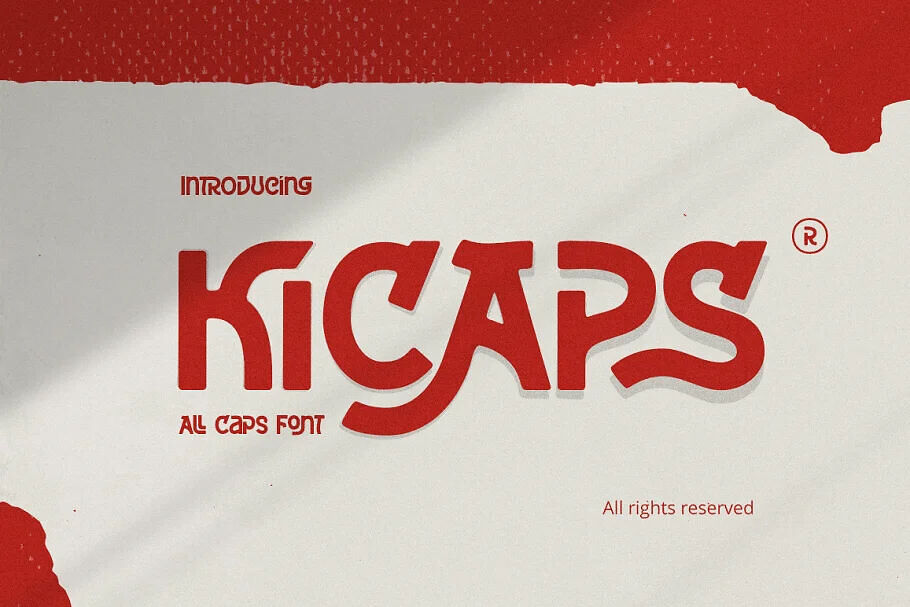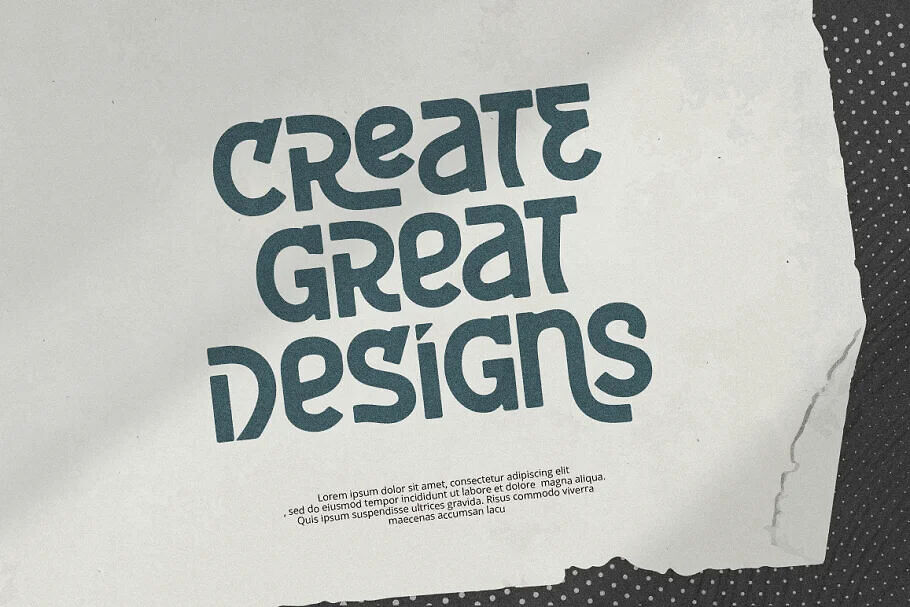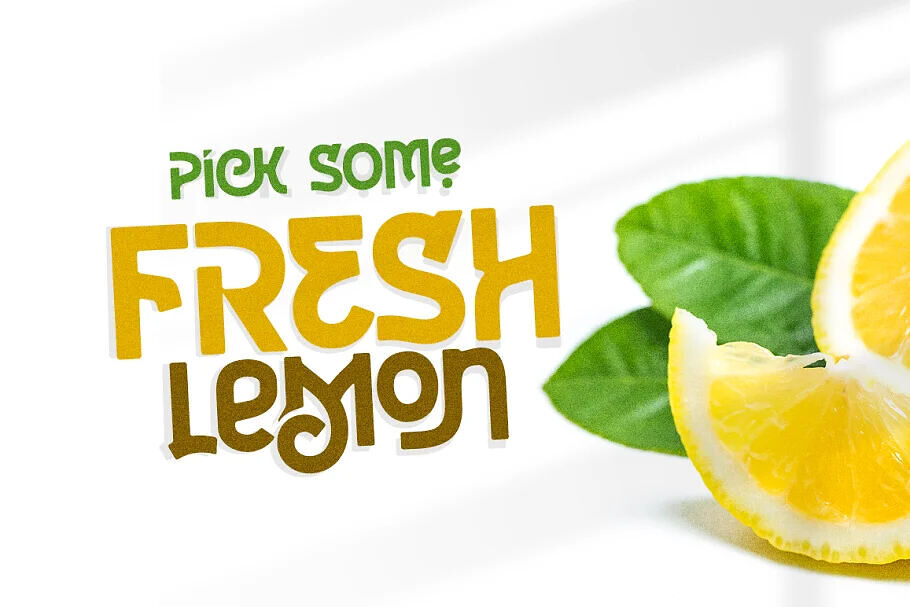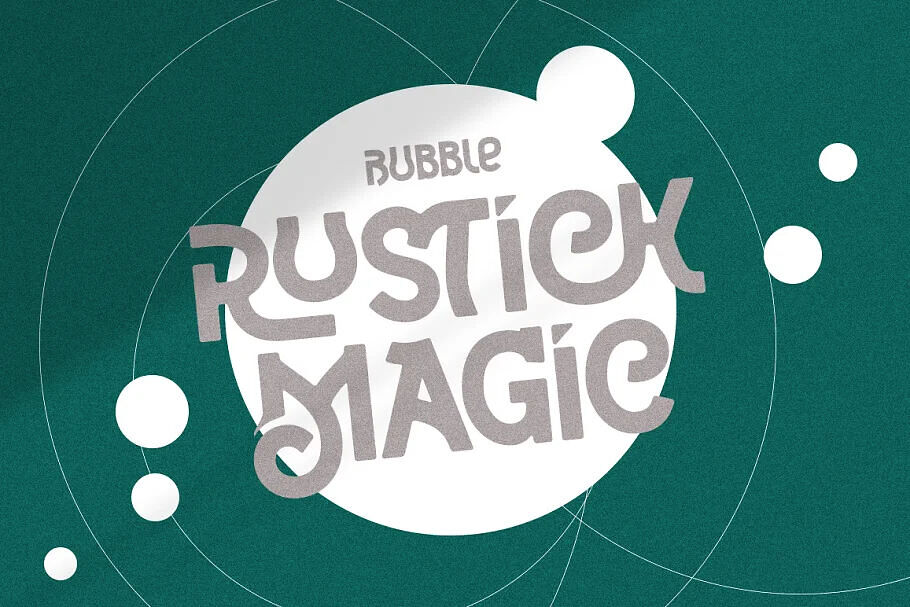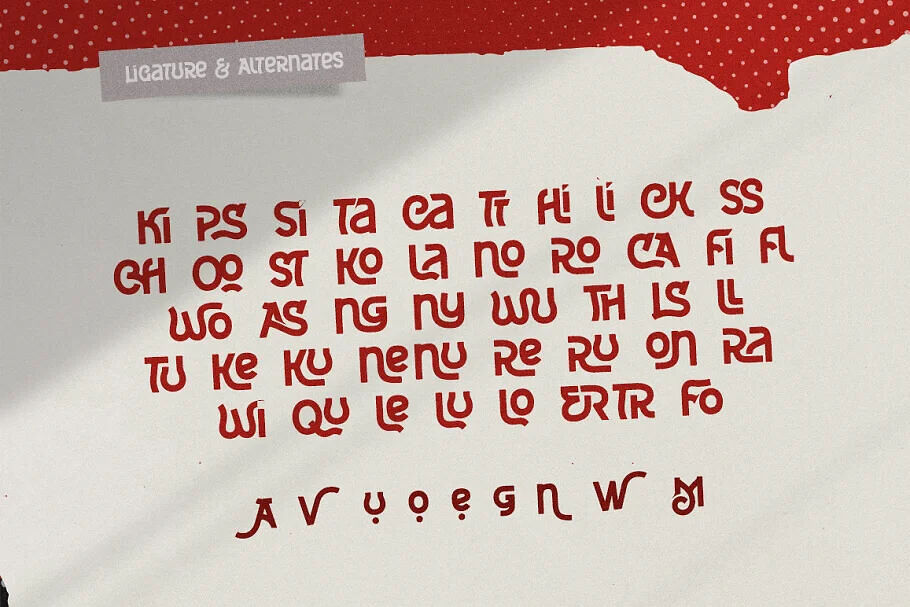
Kicaps Font
Kicaps is an unique all caps sans serif and bold modern look font. This Font design presents a unique display of each characters that created awesome typeface. Also Kicaps design gives a bit more of a restrained option by keeping with more classic sans serif letterforms.
Kicaps font provides a distinct, creative, and expressive message for branding, advertising, packaging, headlines, magazines, websites, logos, and more.